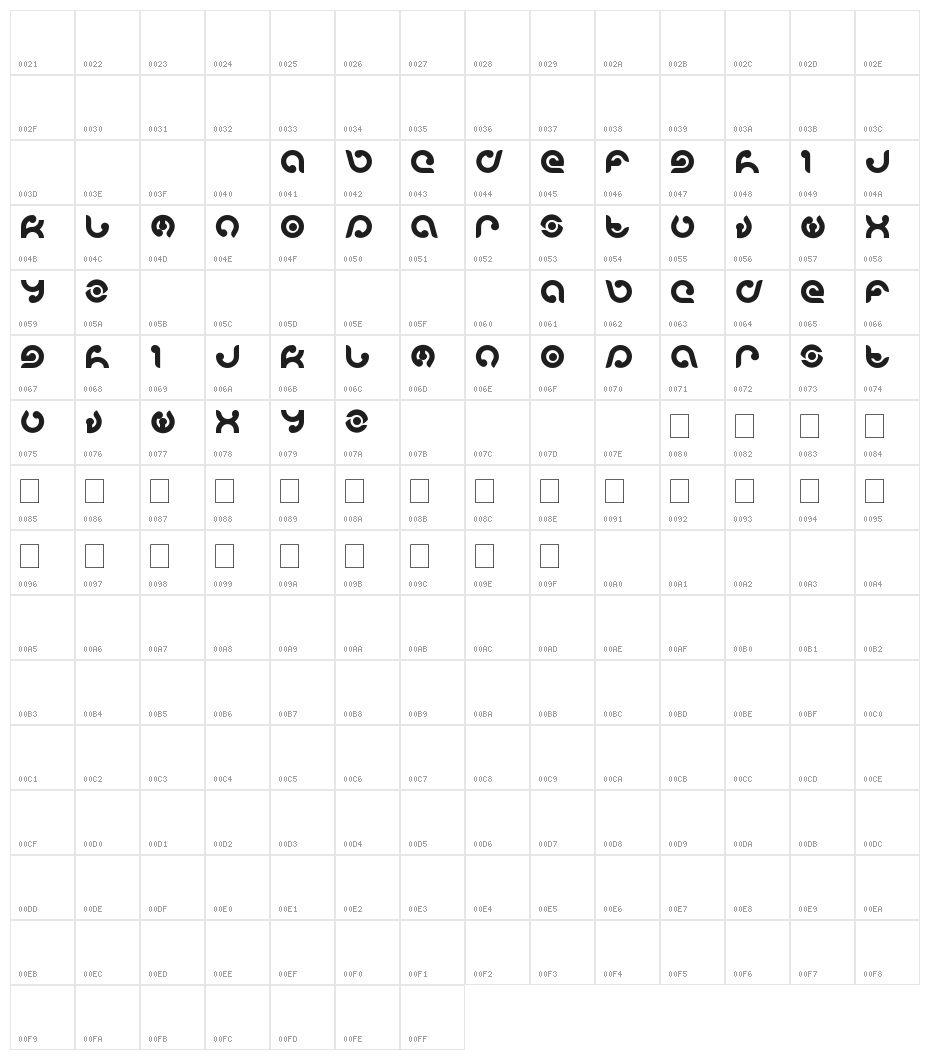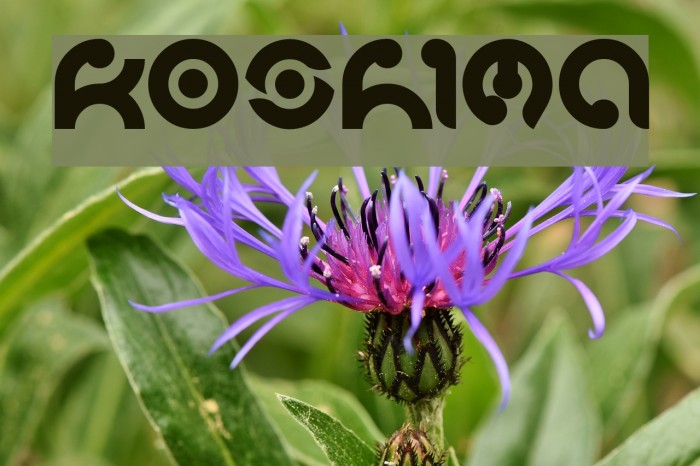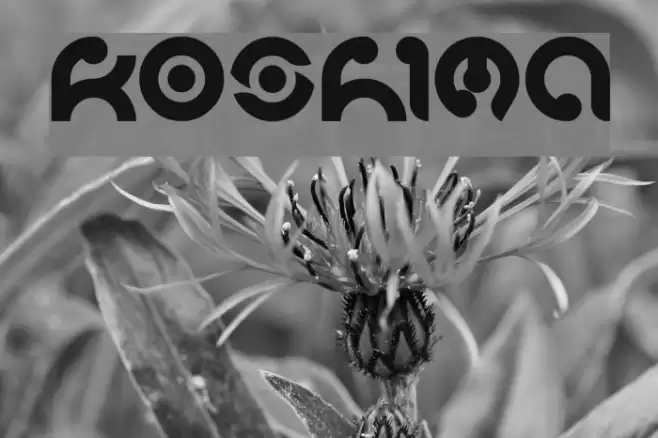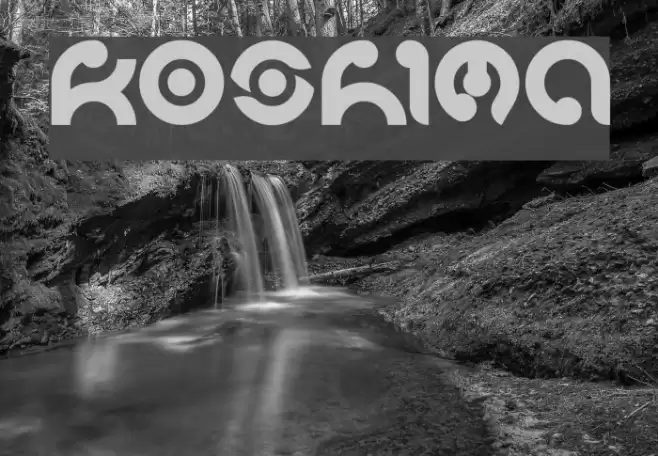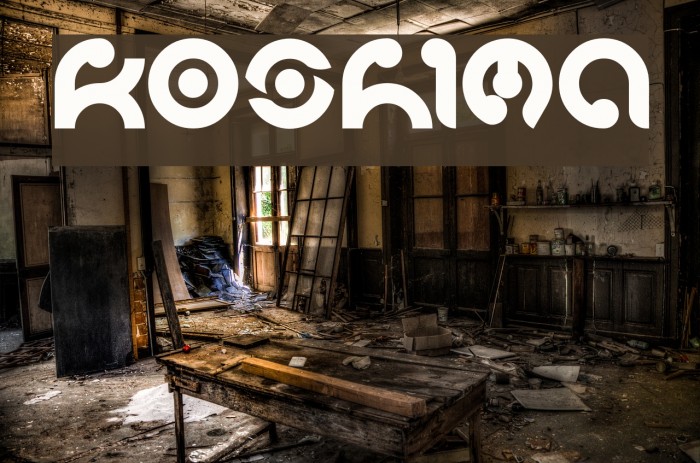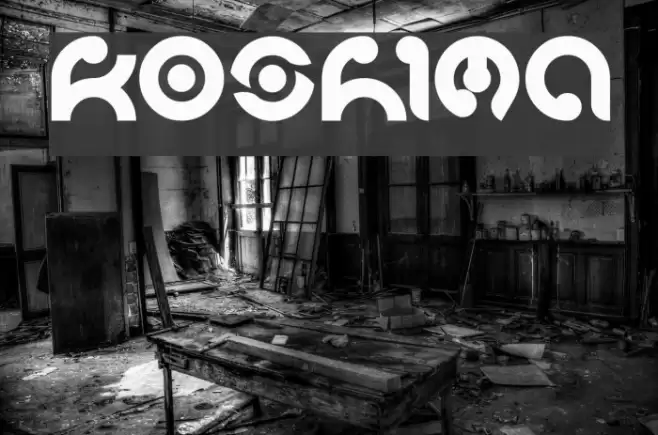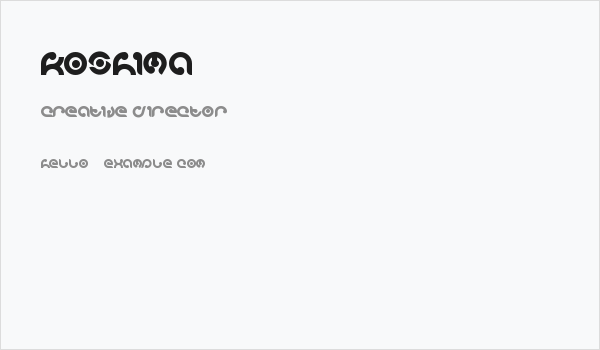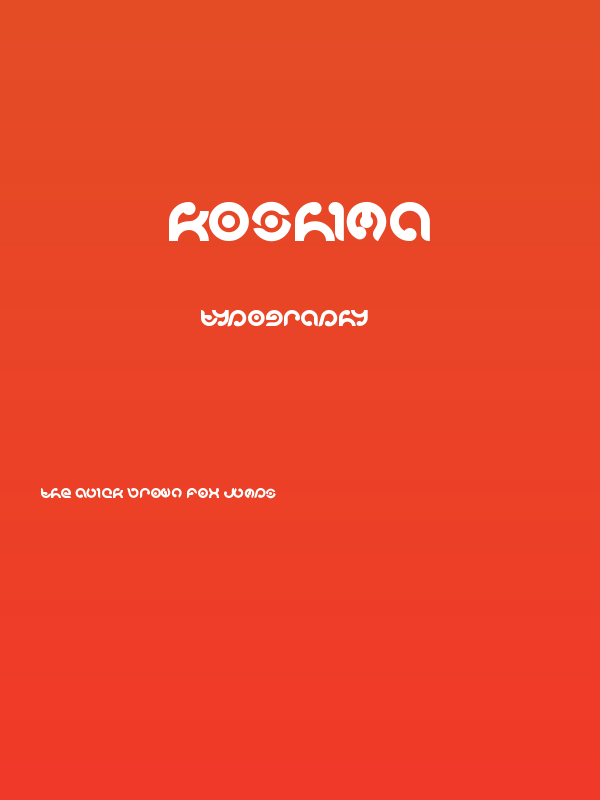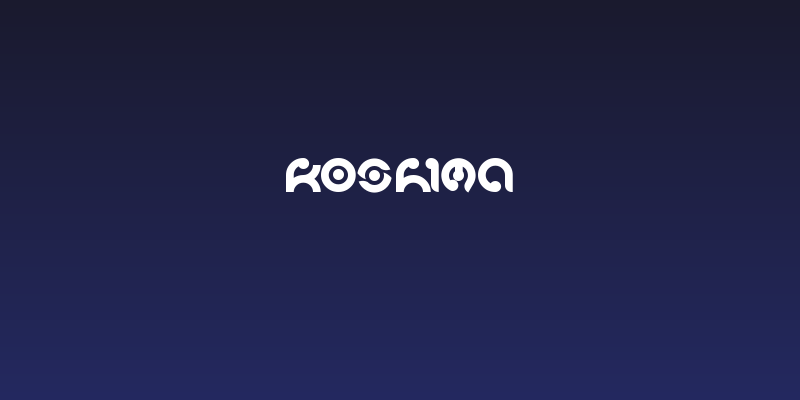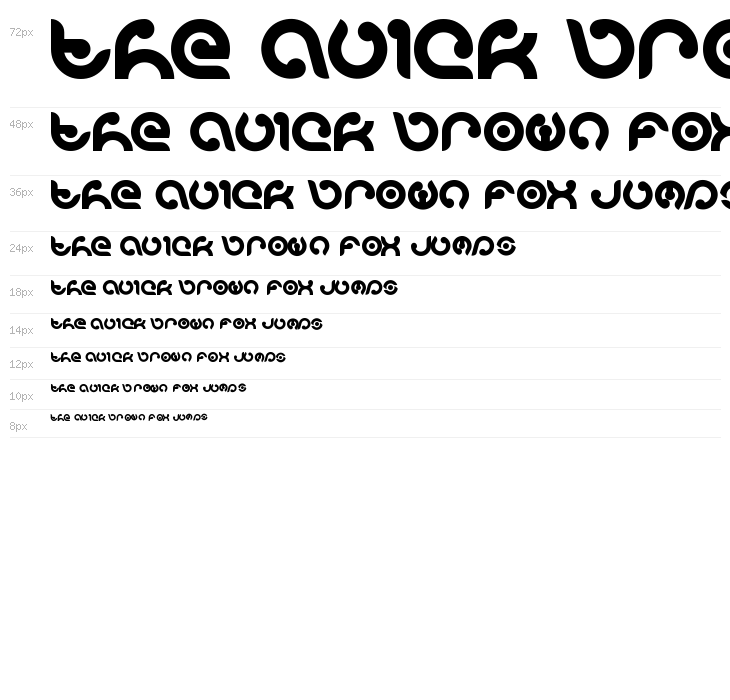
koshima Font
koshima Description
This font features a unique and bold design with a futuristic and abstract aesthetic. The characters are composed of thick, rounded shapes with consistent stroke widths, creating a cohesive and visually striking appearance. The design incorporates circular and semi-circular elements, giving it a playful yet modern feel. The overall style is highly decorative, making it suitable for creative and artistic projects. The font's distinctiveness lies in its ability to capture attention while maintaining readability, making it ideal for headlines and display purposes.
| Proposed Projects | Ideal for sci-fi themed posters, modern art projects, branding for tech companies, and eye-catching headlines. |